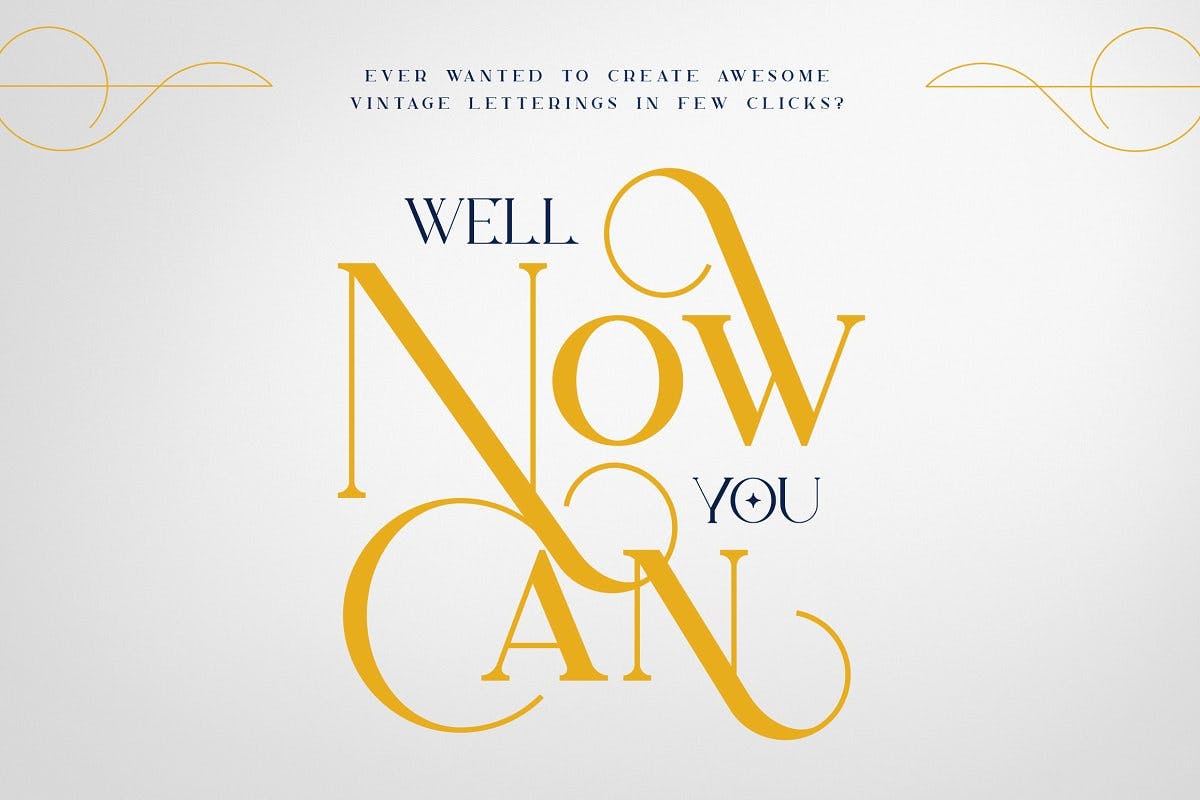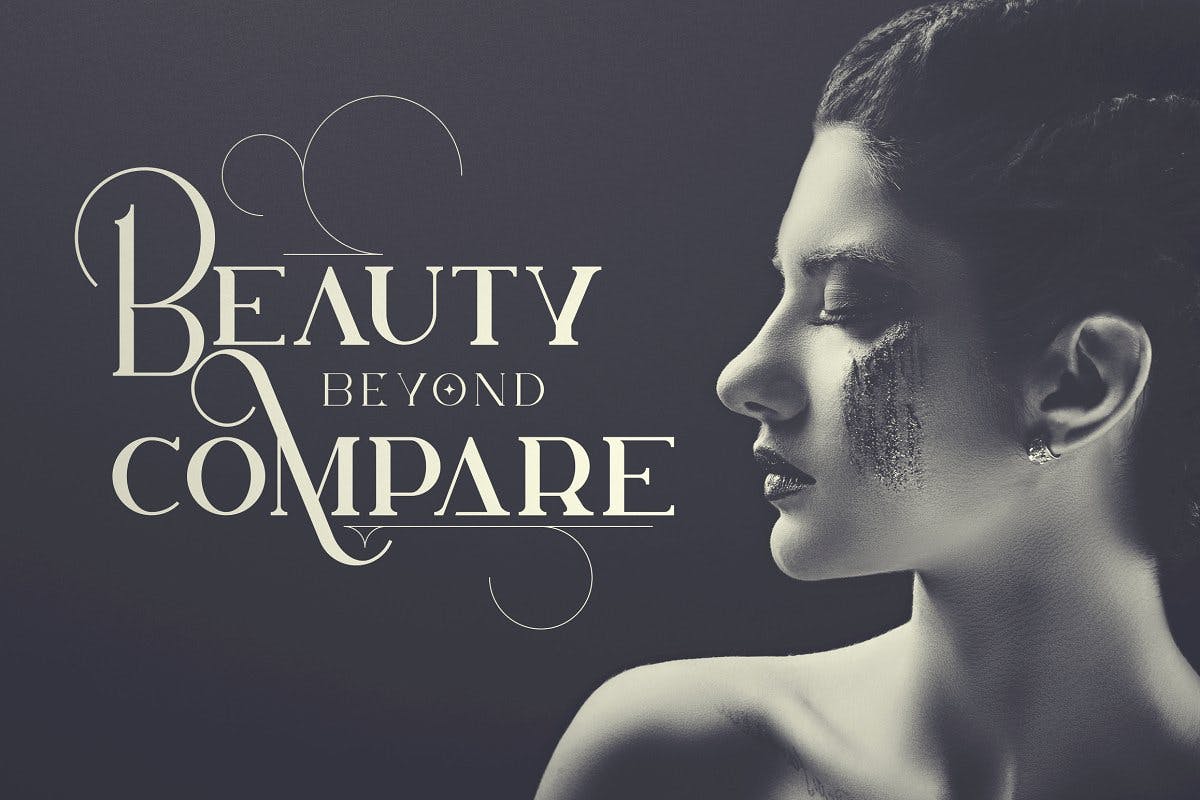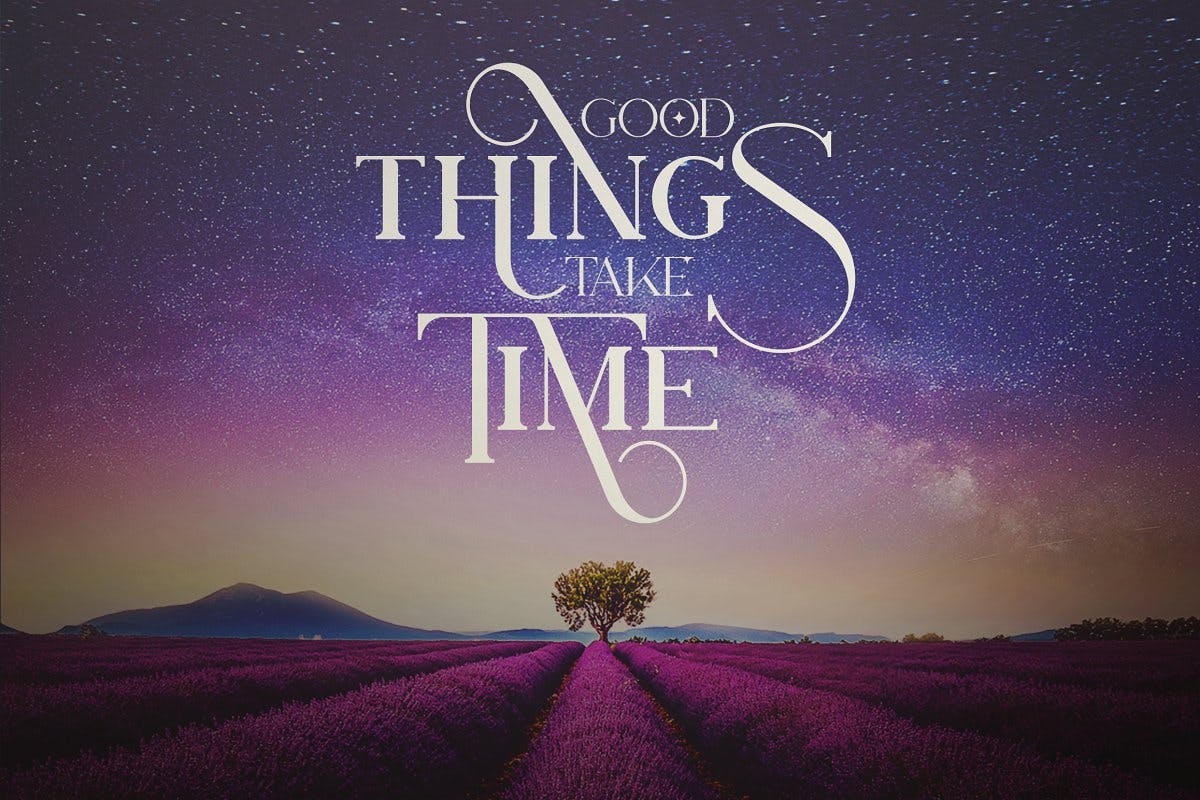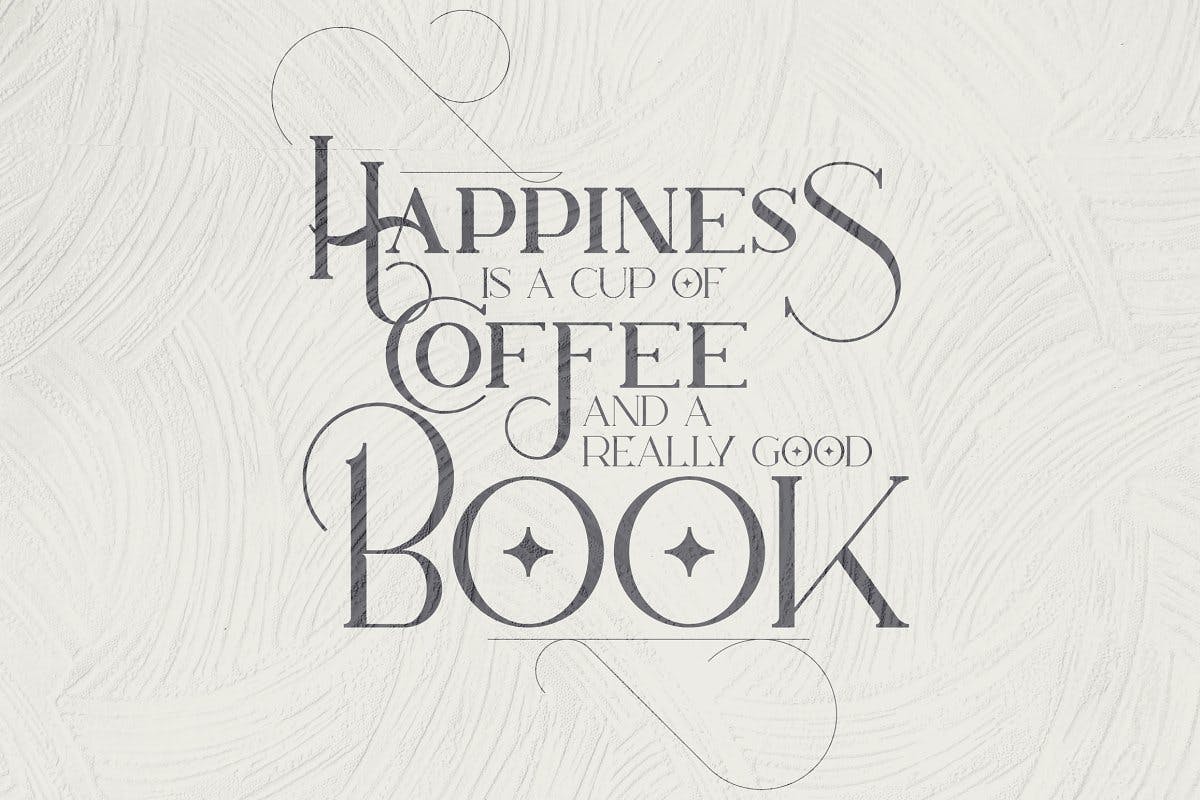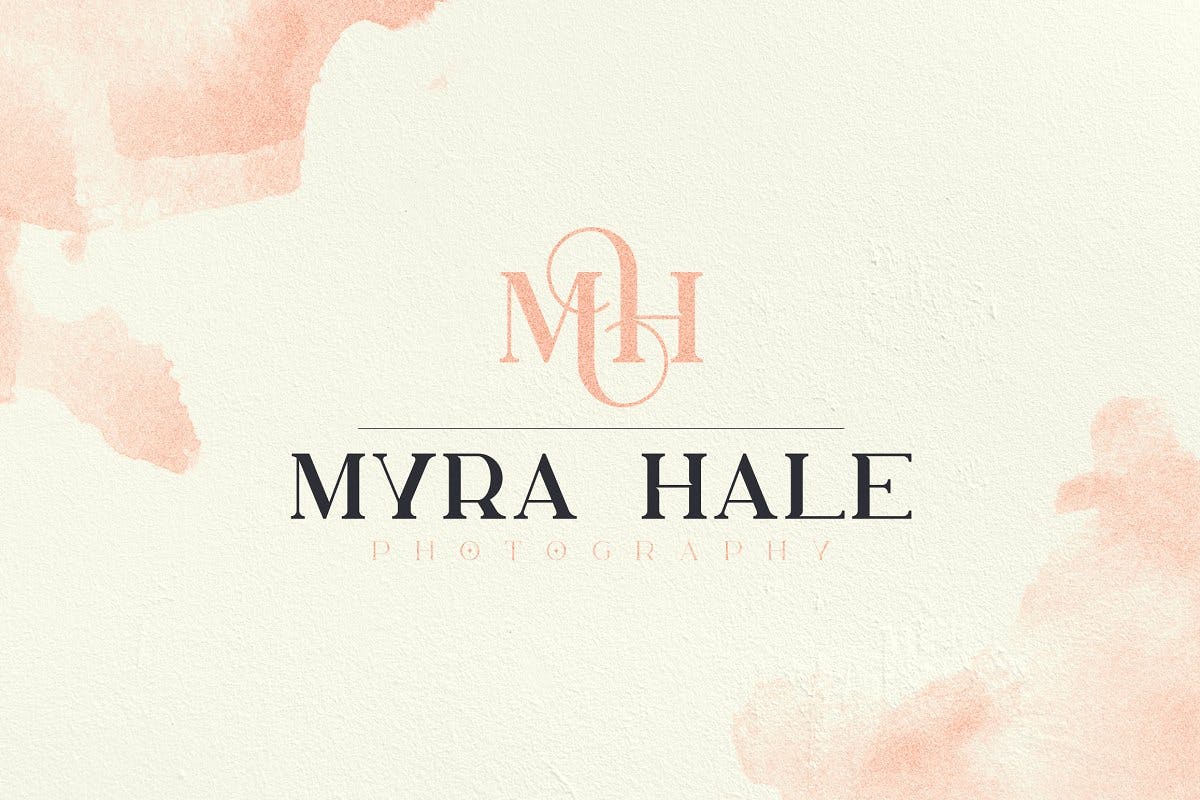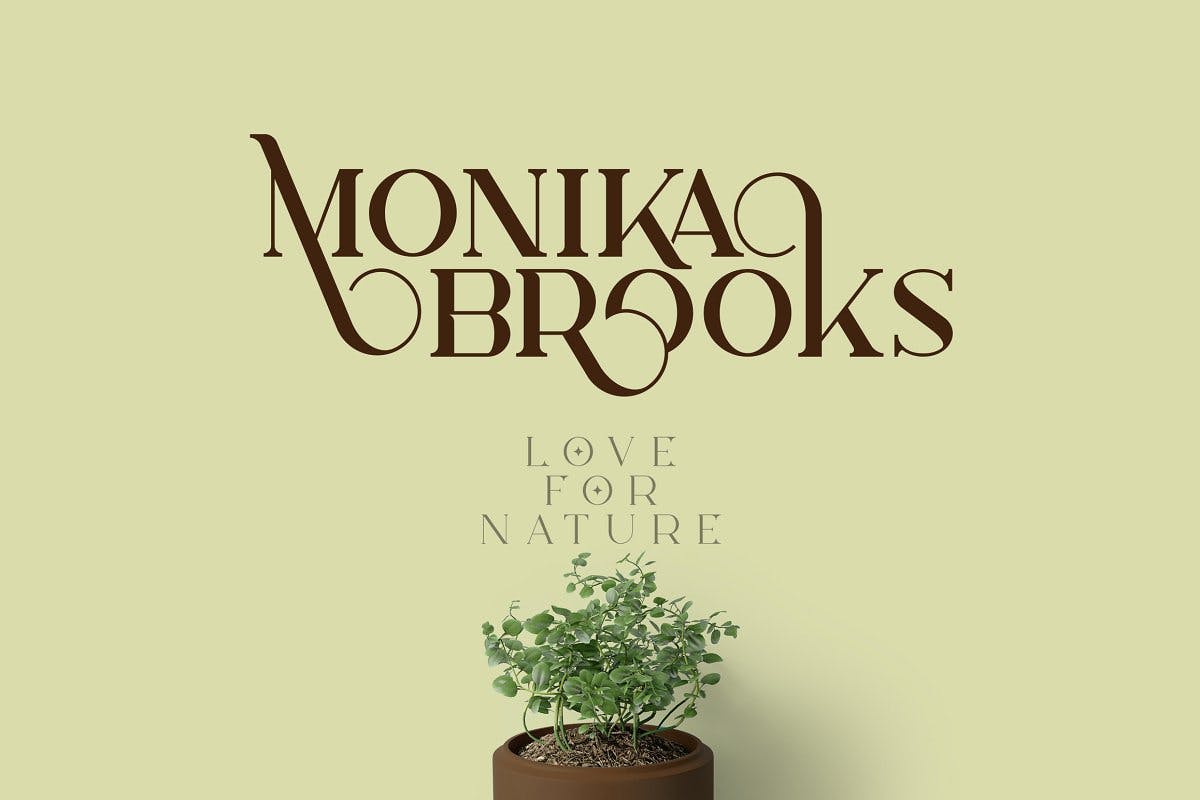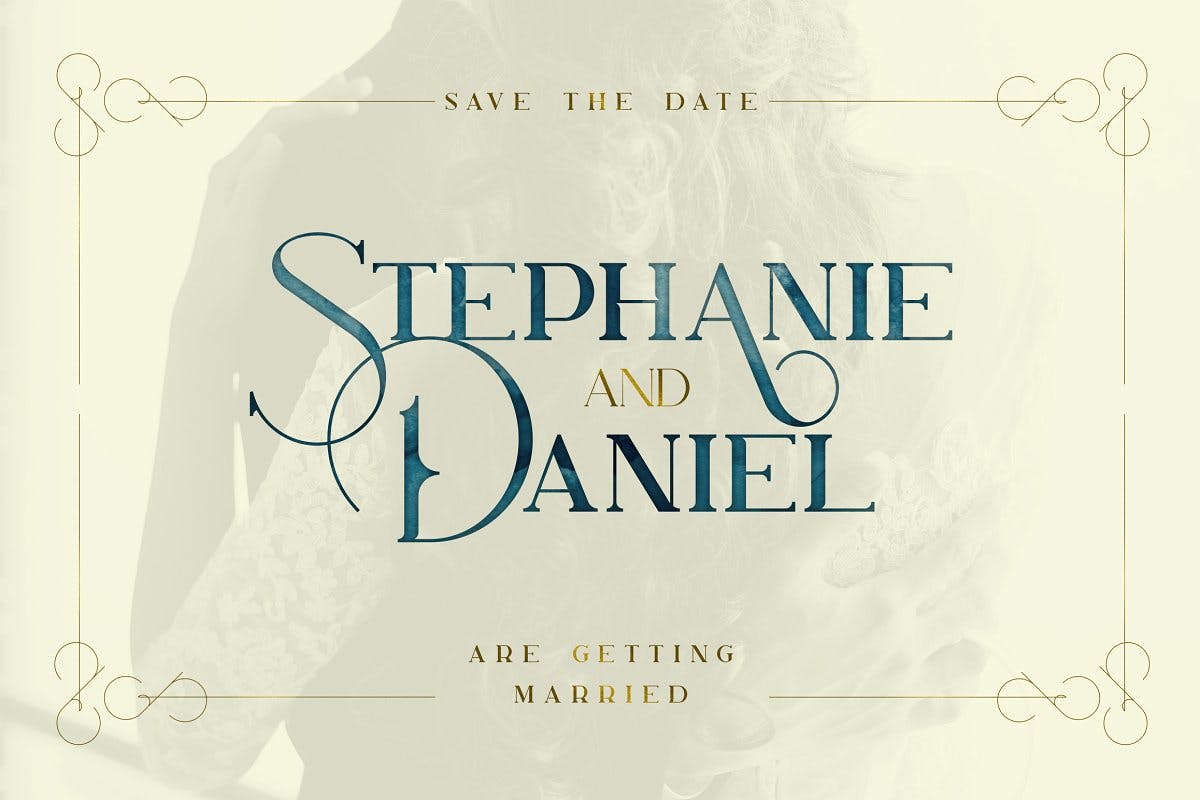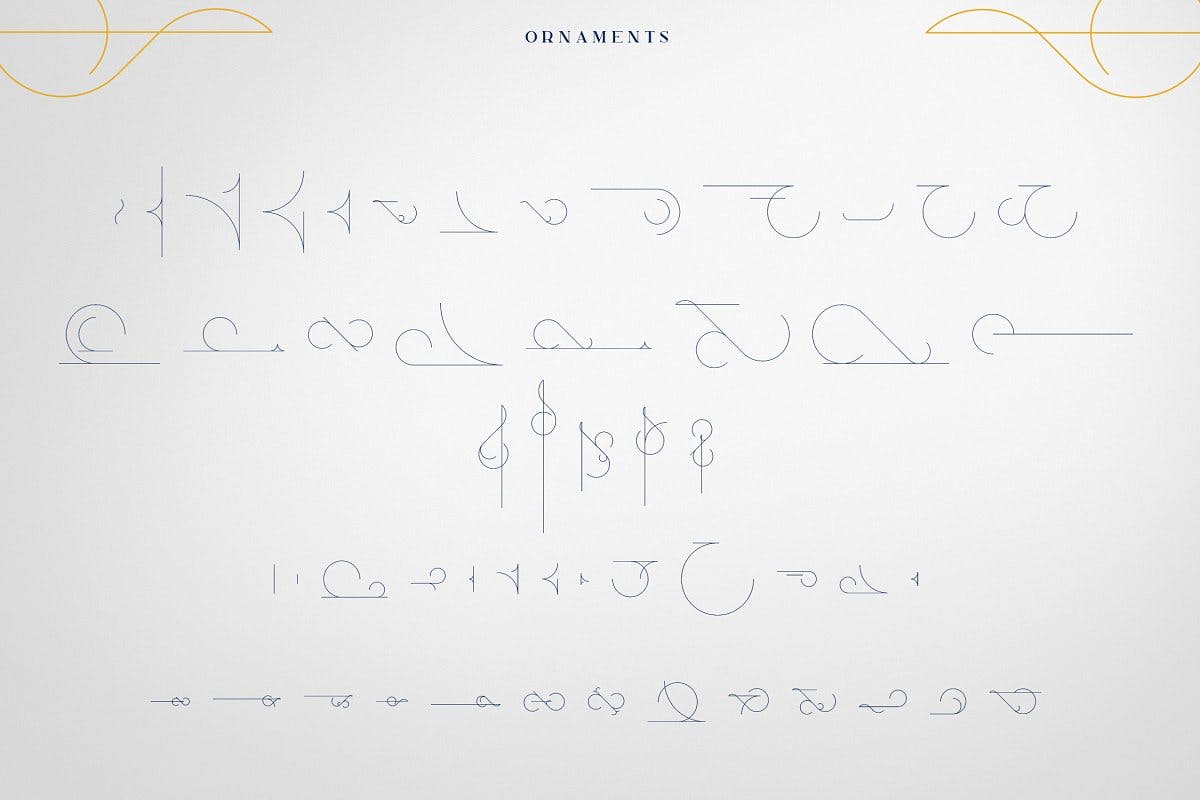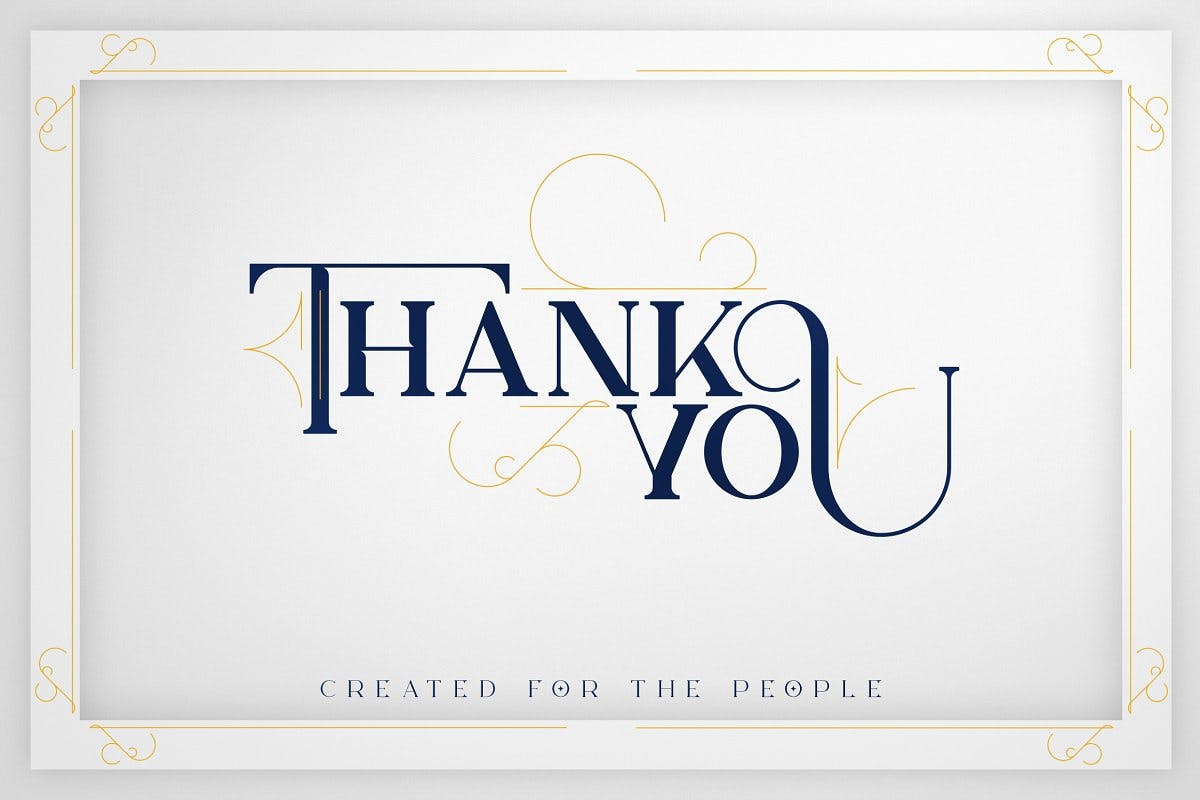
Free Demo Lotus Eater Display Font
Free Demo Lotus Eater Display Font is a clean display font with a unique character. It is a kinda vintage font style that suits your works such as branding projects, home-ware designs, product packaging, and more. Hence, this font comes with some ligatures, tons of alternative glyphs, ornament, and multilingual support. Also, this font is available uppercase, lowercase, punctuation & Symbol. However, this free font is ready for personal use, if you want to get more advantages features, by purchasing the premium version.